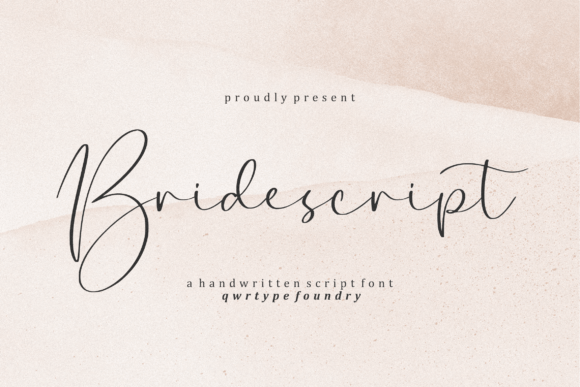
The Bridescript Font: A Timeless Beauty for Your Creative Projects
I’ll never forget the moment I stumbled upon the Bridescript font. I was working on a wedding invitation design for a client, and I was struggling to find the perfect font that exuded elegance and sophistication. The design had to be flawless, as it was a once-in-a-lifetime event for the couple. As I scrolled through my font library, I chanced upon Bridescript, and it instantly caught my eye. Its beautiful, flowing script and classy calligraphic influences made it an instant favorite.
• ✨ Exquisite handwritten design that feels both classic and contemporary
• 💫 Beautifully crafted to add a touch of elegance to any project
• 🎨 Versatile and can be used for a wide range of creative projects, from wedding designs to branding and packaging
While Bridescript is an amazing font, there are a few things to keep in mind:
• ⚠️ Some users have reported issues with kerning, particularly when using the font at larger sizes. This can be adjusted manually, but it’s something to be aware of.
• 🤔 The font may not be the best choice for body text, as it’s designed primarily for headlines and titles. For longer blocks of text, a more traditional serif or sans-serif font might be more suitable.
The Designer Inspiration Behind Bridescript
Bridescript was designed with the intention of creating a beautiful, timeless font that would evoke the elegance and sophistication of traditional calligraphy. The designer drew inspiration from classic wedding scripts and modern typography, combining the two to create a unique and stunning font.
Q: What type of projects is Bridescript best suited for?
A: Bridescript is perfect for wedding designs, branding, packaging, and any creative project that requires a touch of elegance and sophistication.
Q: Is Bridescript a difficult font to read?
A: No, Bridescript is a highly legible font, even at smaller font sizes. However, as with any script font, it may be more challenging to read in longer blocks of text.